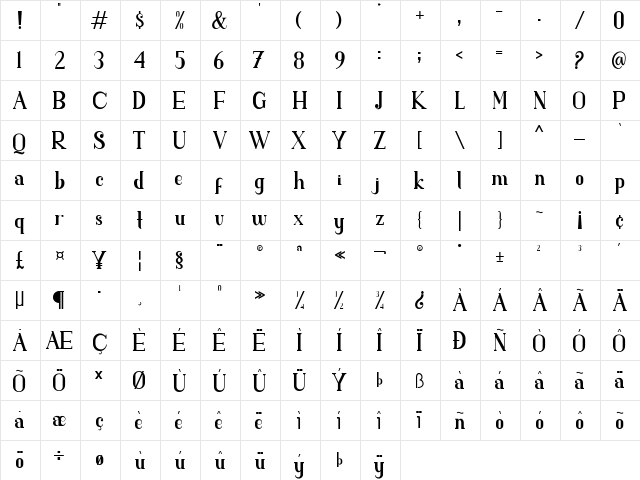
SINGGEL PARENT SERIF Regular
| Foundry | AFREDO.FK |
| Designer | ZULFIKAR ALI |
Design Context for SINGGEL PARENT SERIF Typeface
SINGGEL PARENT SERIF brings classic typographic sensibility to the table — its serifs and measured letterforms reflect centuries of print heritage.
Pro Tip: Use SINGGEL PARENT SERIF for editorial body copy and considered headline work. Pair with a neutral sans for UI elements or captions to create a classic hierarchy.